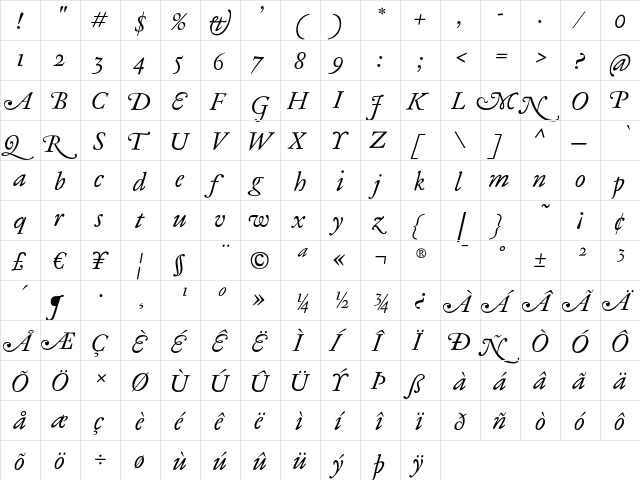
Antique Ancienne Italic
| Foundry | Frantisek Storm, stormtype.com |
| Designer | Frantisek Storm |
Design Context for Antique Ancienne Typeface
Antique Ancienne wears its vintage influences proudly, with letterforms that recall mid-century signage, classic packaging, and nostalgia-driven design. The dynamic lean of this cut emphasises speed and emphasis in any layout.
Perfect for vintage-inspired branding, retro packaging, nostalgia campaigns, and period-accurate editorial design.
Font Pairing: Combine Antique Ancienne with a simple slab or neutral sans — period-accurate companions reinforce the vintage feel without competing for attention.
Pro Tip: Use Antique Ancienne for headlines and pull quotes rather than body copy — its personality is best appreciated in short, focused bursts.